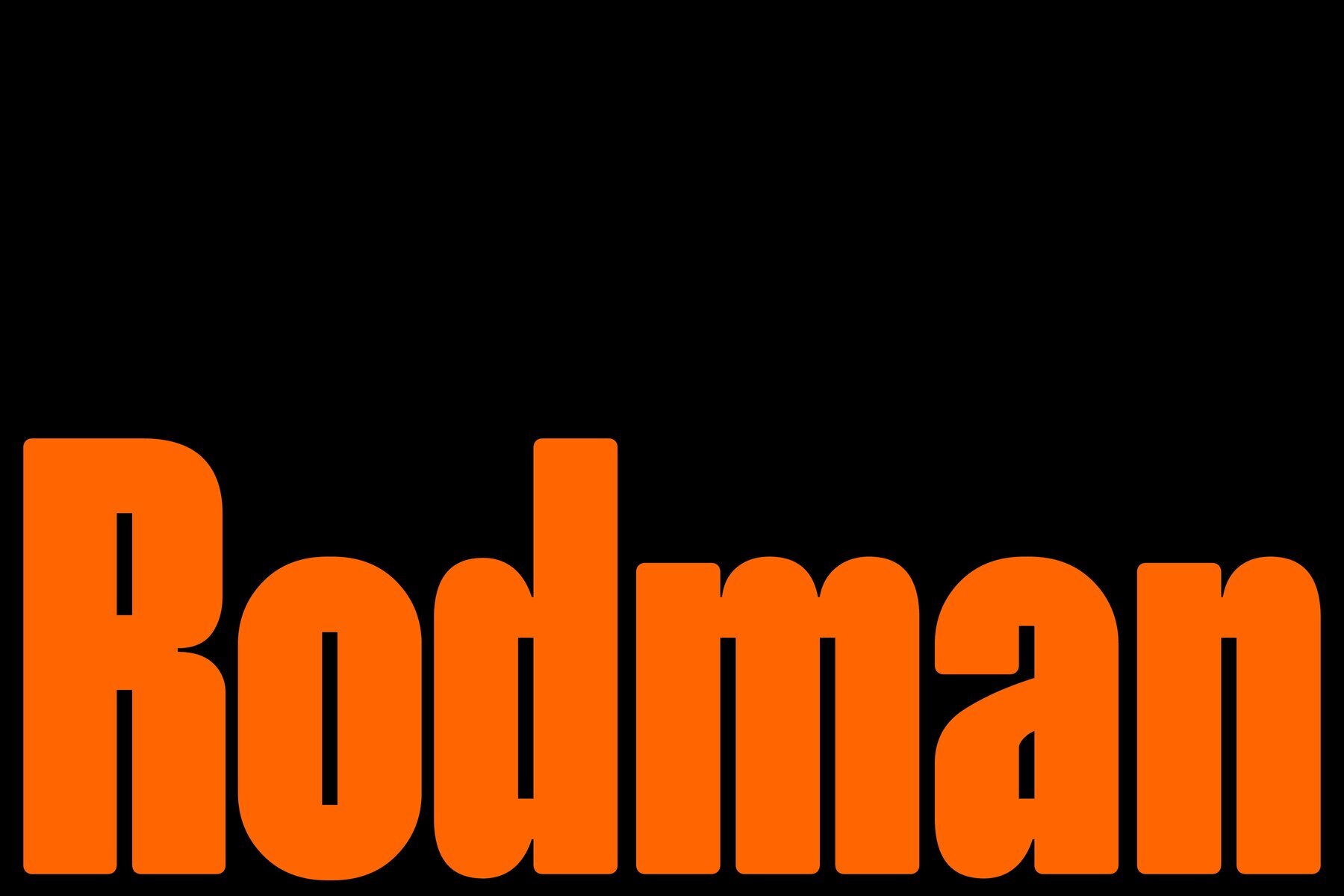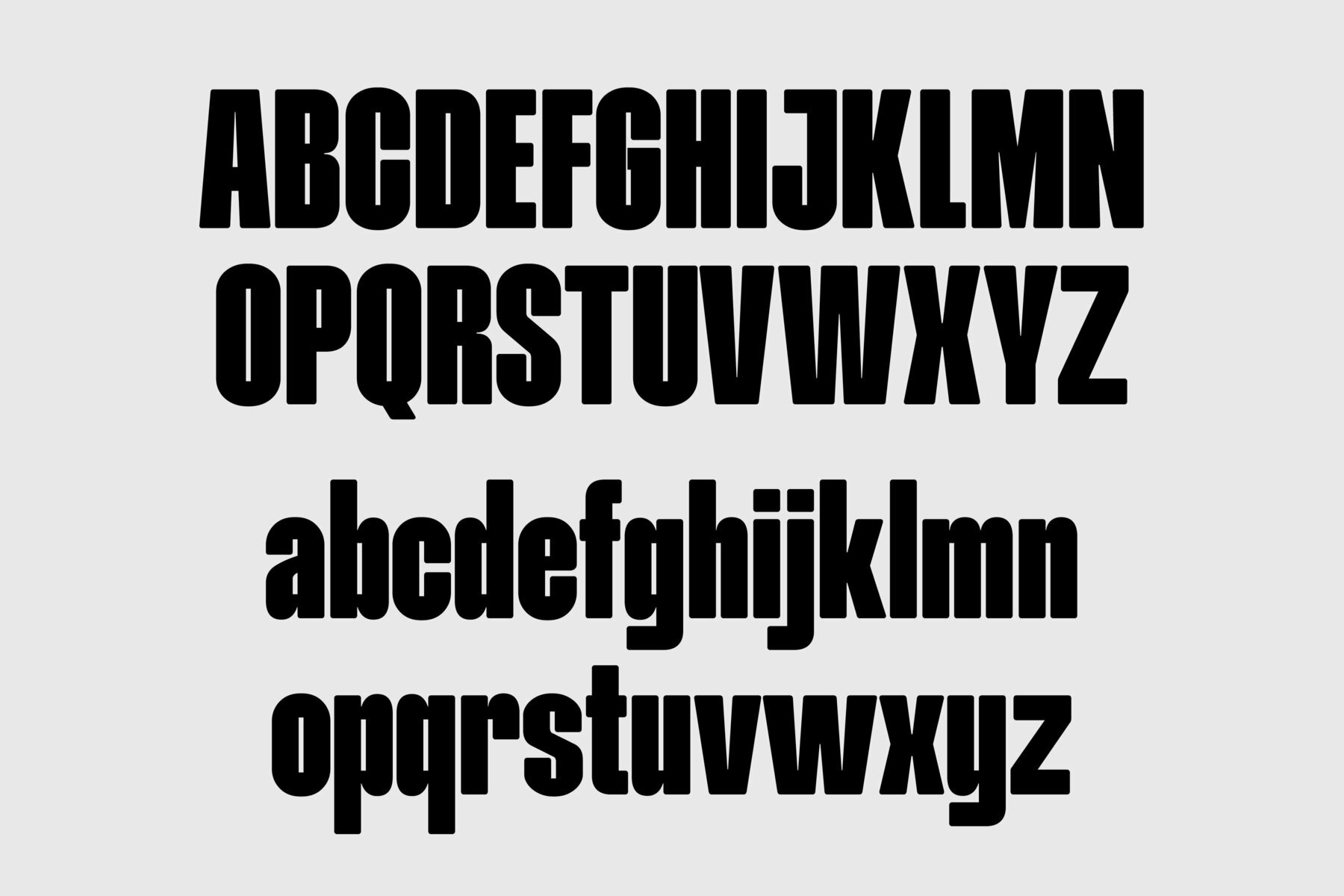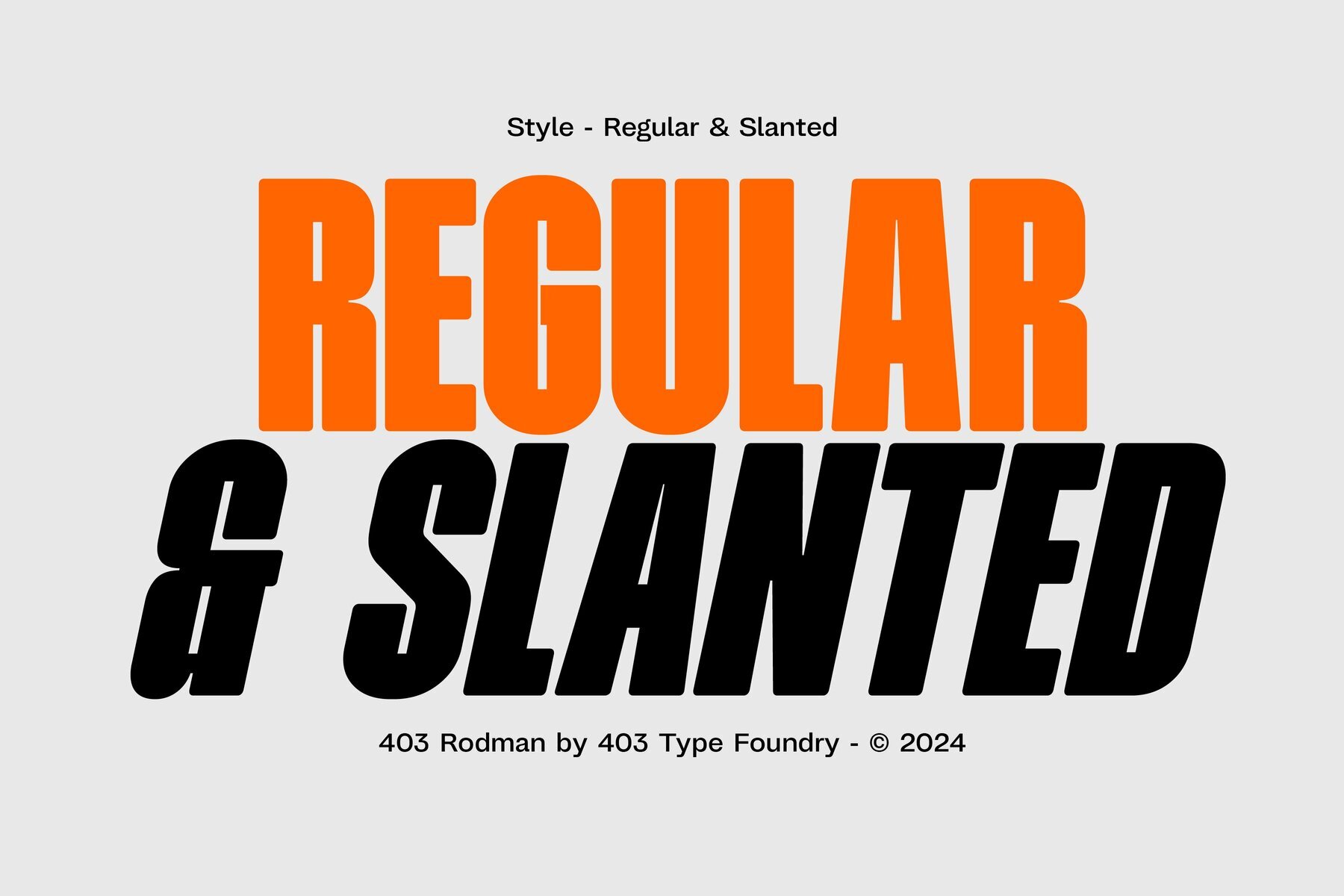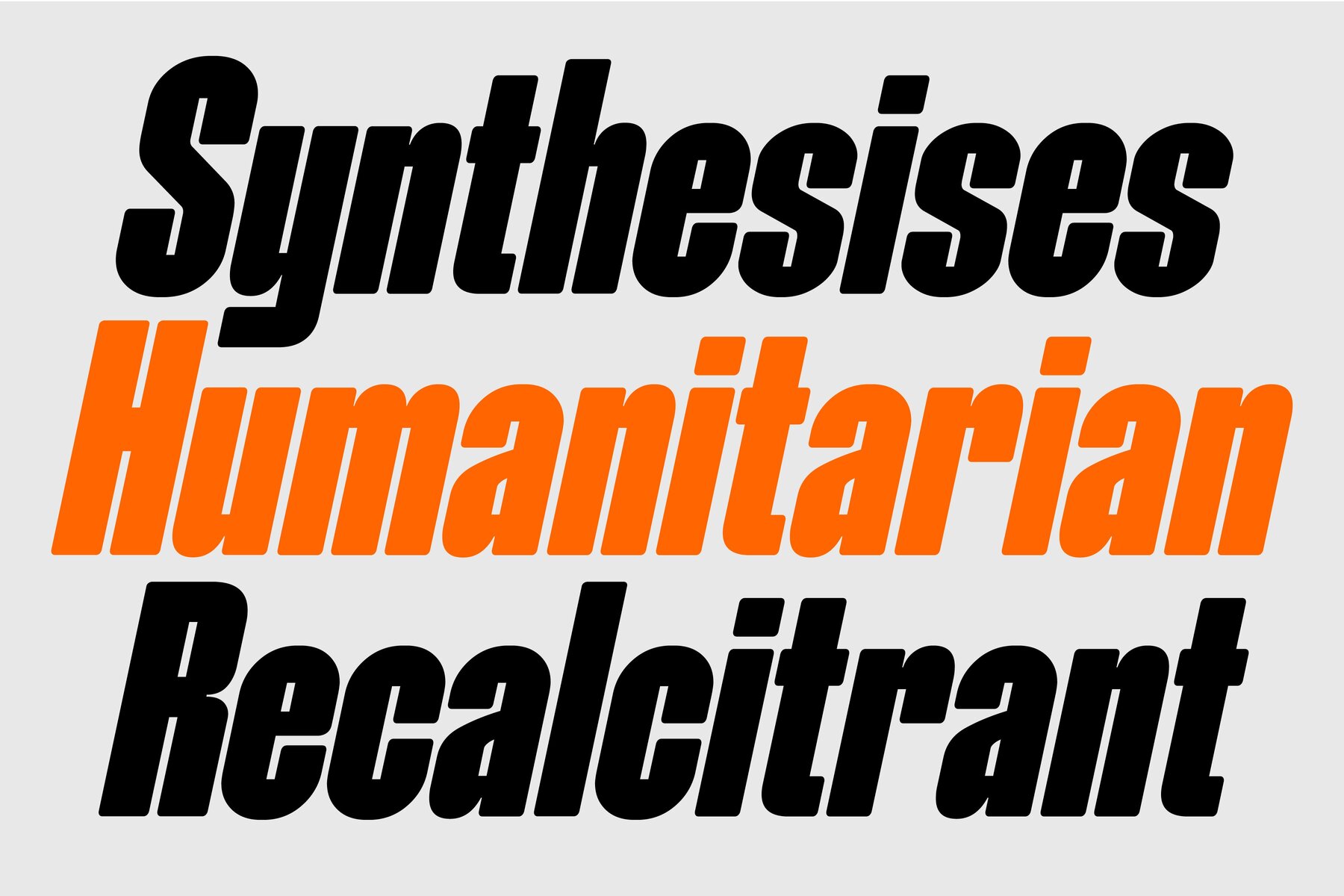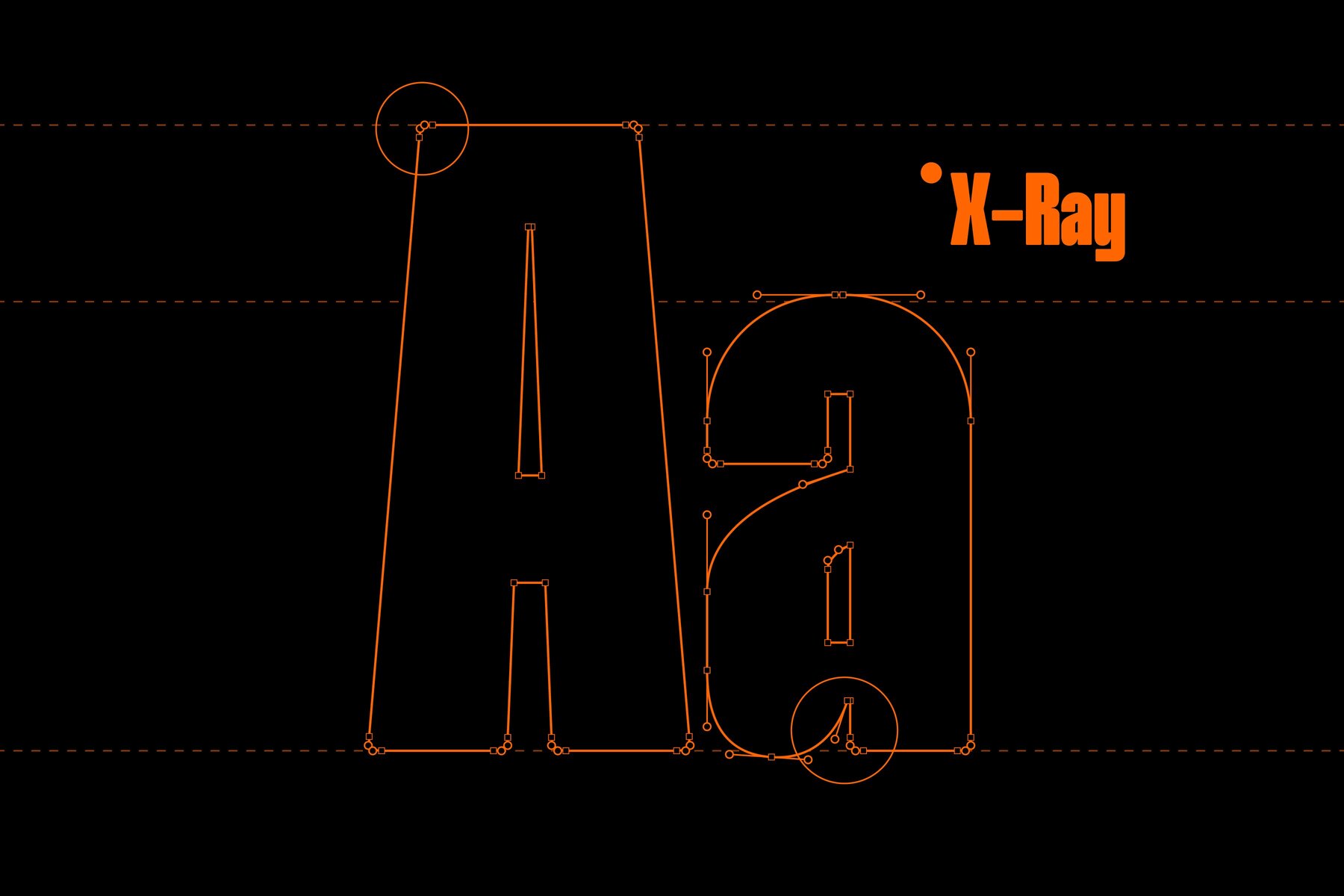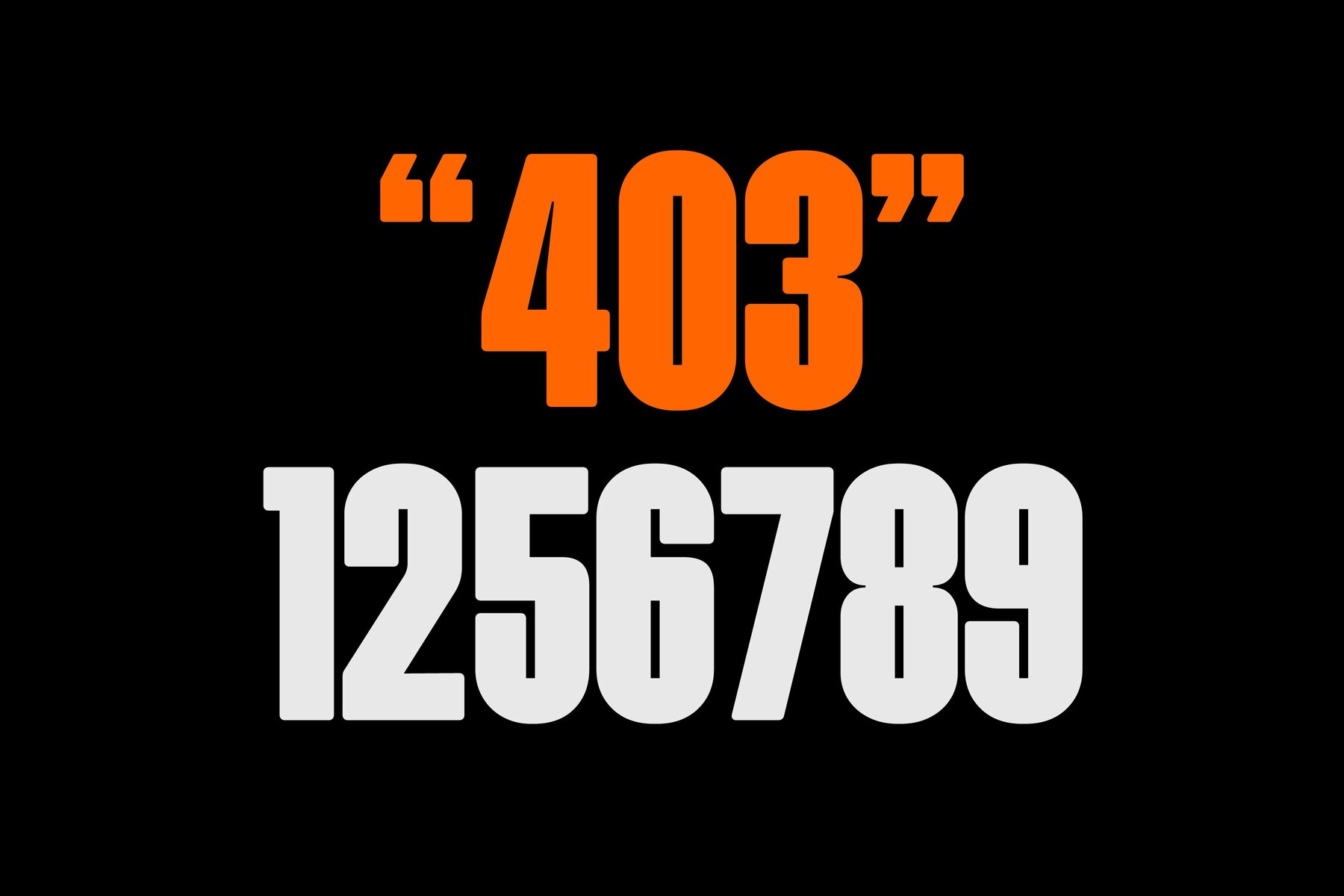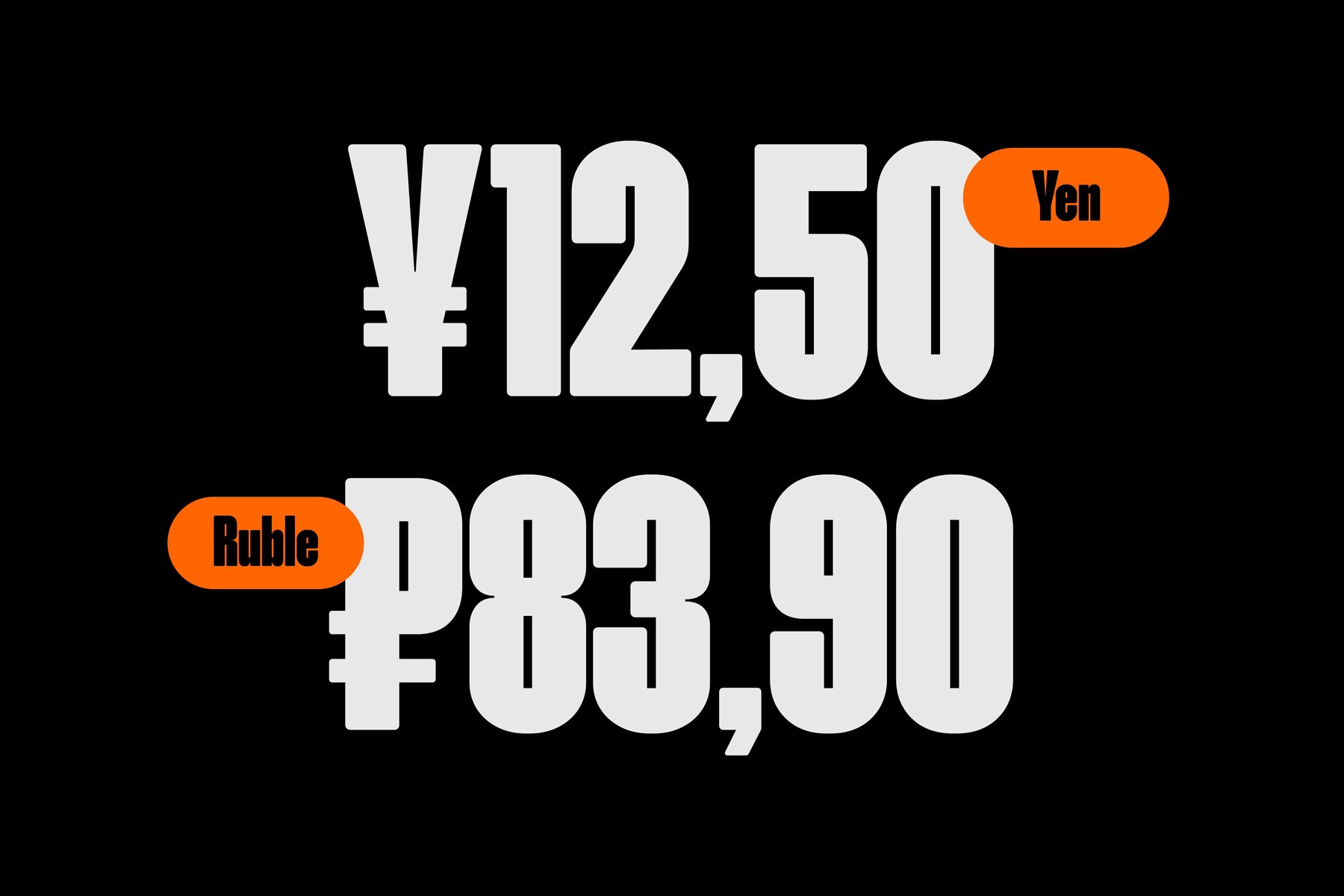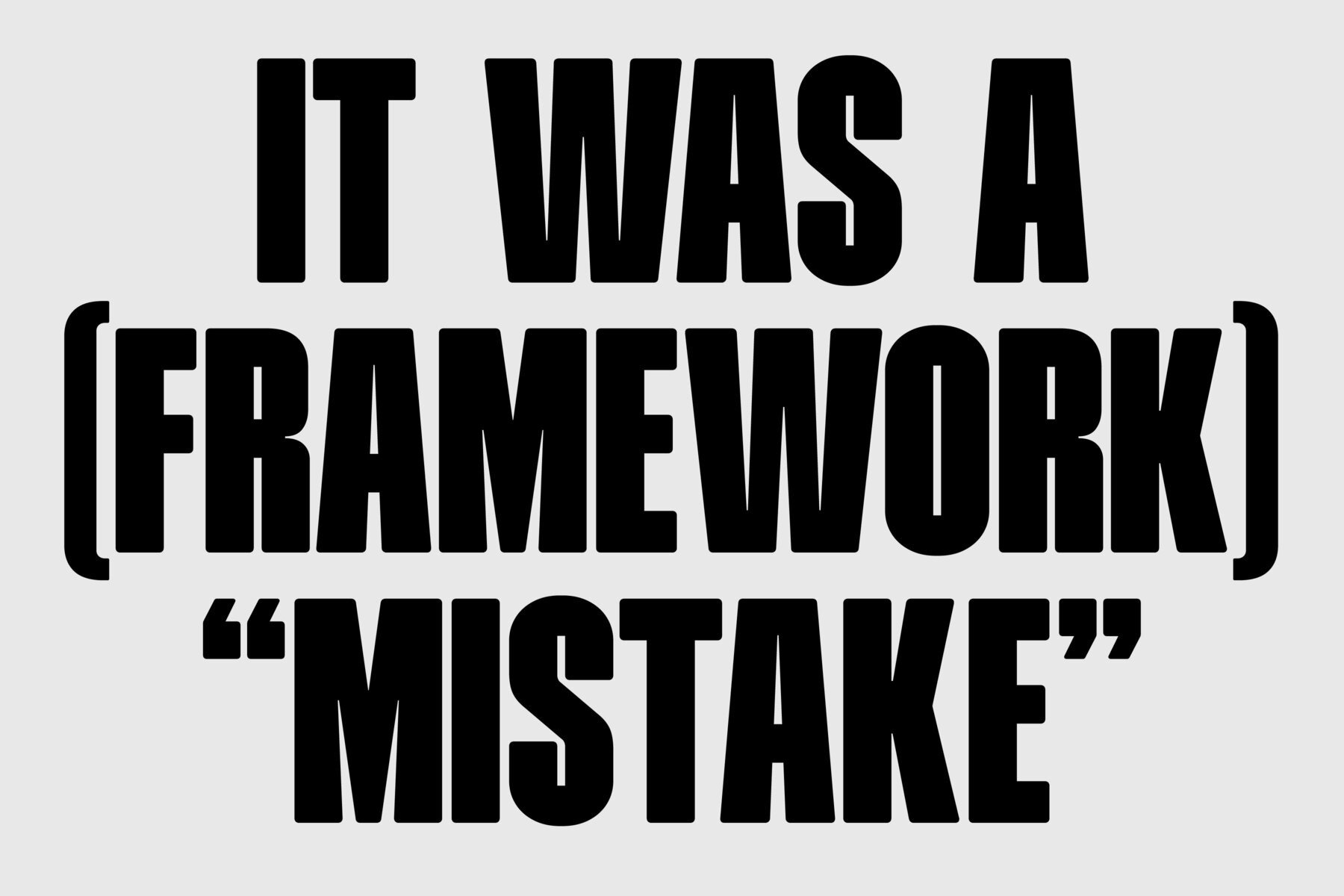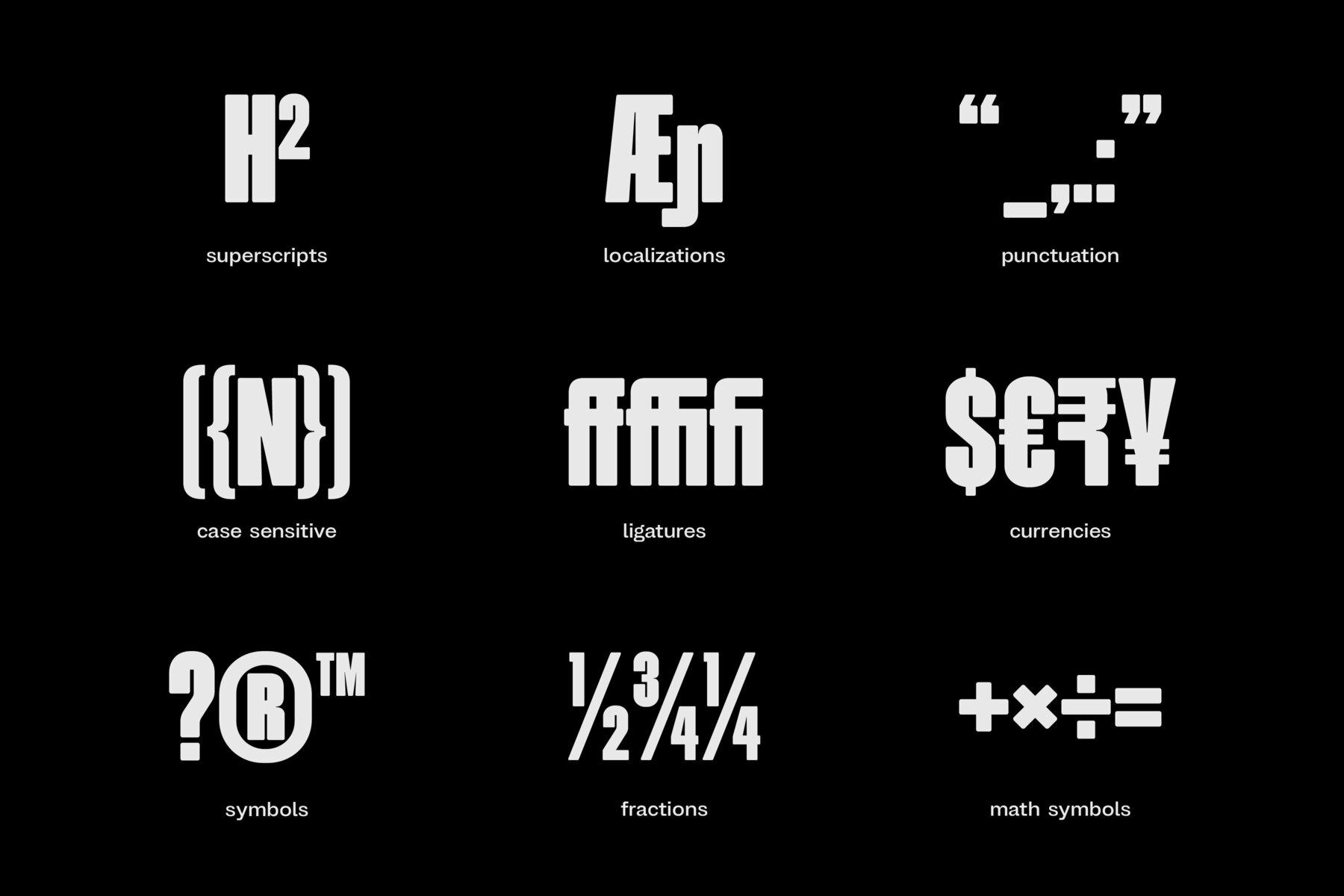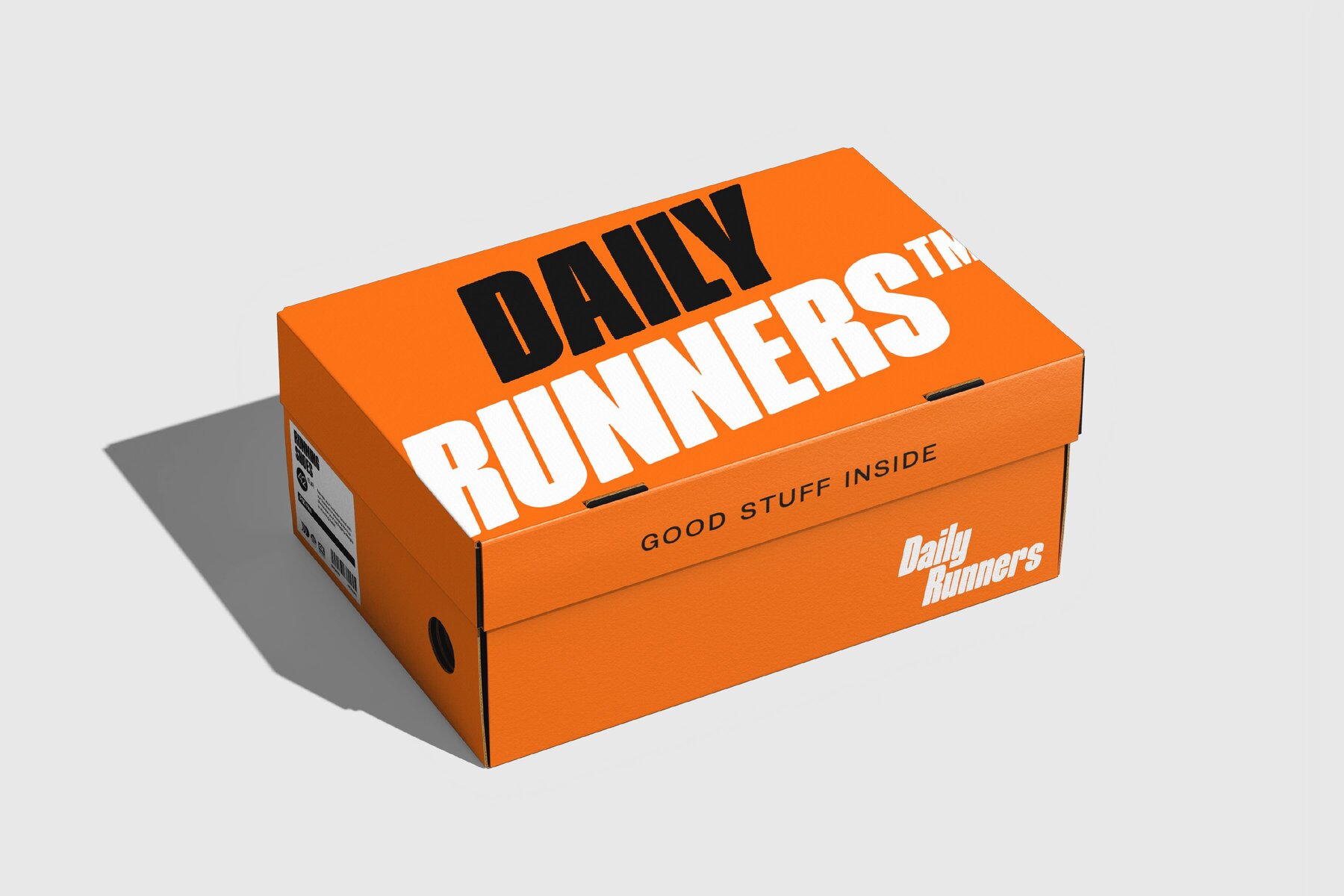
403 Rodman Font
403 Rodman Regular
403 Rodman Slanted
The font 403 Rodman is a bold, condensed typeface that offers a commanding presence with its single weight and two styles: regular and slanted. Designed to make an impact, it is perfect for headlines, posters, and any content that demands attention. Supporting 269 languages, this versatile font is equipped with 419 glyphs per style, ensuring extensive multilingual compatibility. Its consistent stroke width and vertical stress contribute to a modern and clean aesthetic, while the slanted style adds a dynamic, italicized option for emphasis. Overall, 403 Rodman is a robust and adaptable choice for diverse design needs.